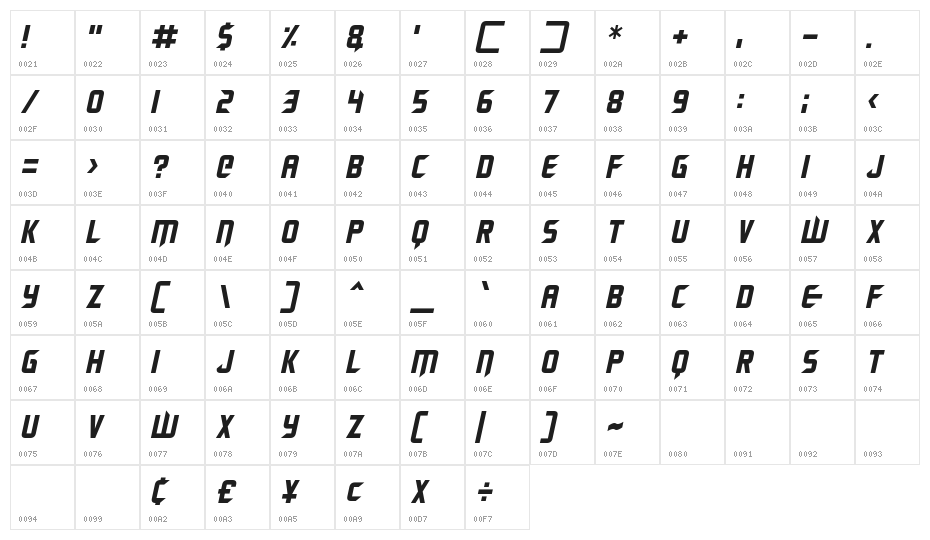
Renegade Moons Italic Font
Renegade Moons Italic Description
This font features a dynamic and futuristic design with sharp, angular edges and a forward-leaning italic style. The characters are bold and impactful, making a strong visual statement. The uppercase letters have a distinct geometric form, while the lowercase letters maintain a consistent style, enhancing readability. The numerals are equally bold, with a modern aesthetic that complements the overall design. Special characters are included, maintaining the same angular and bold characteristics. This font is ideal for projects that require a modern and edgy look.
Overall StyleFuturistic
Proposed ProjectsIdeal for sci-fi themed designs, video game titles, tech branding, and futuristic posters.